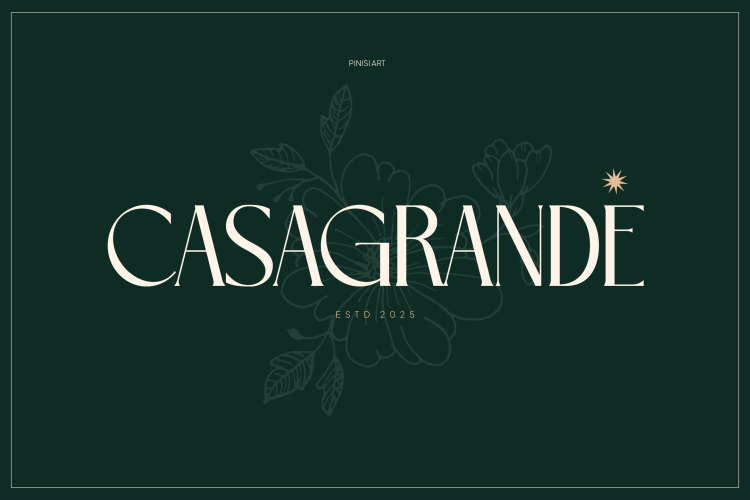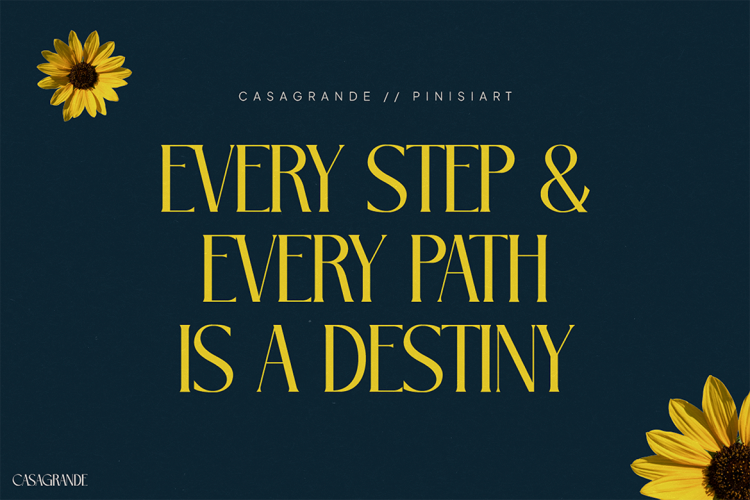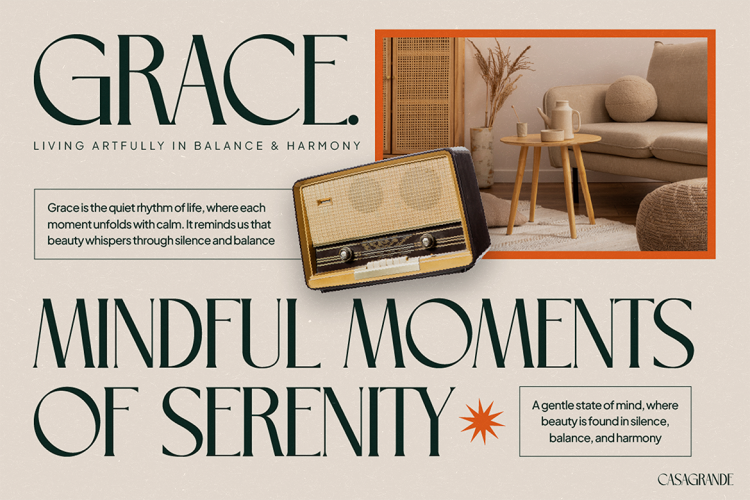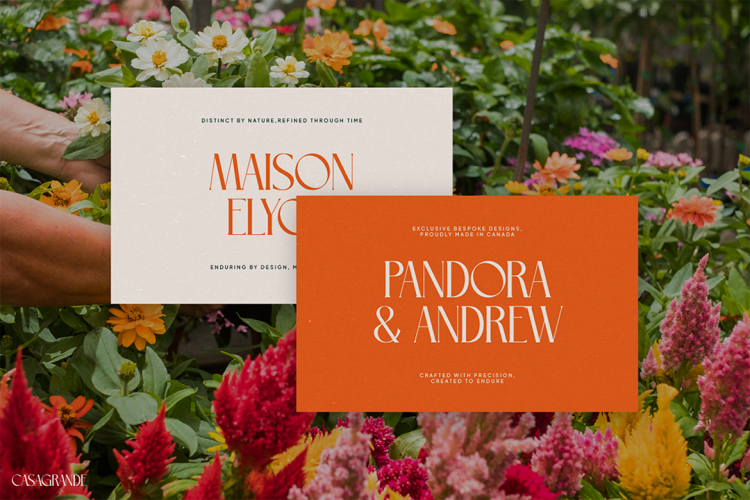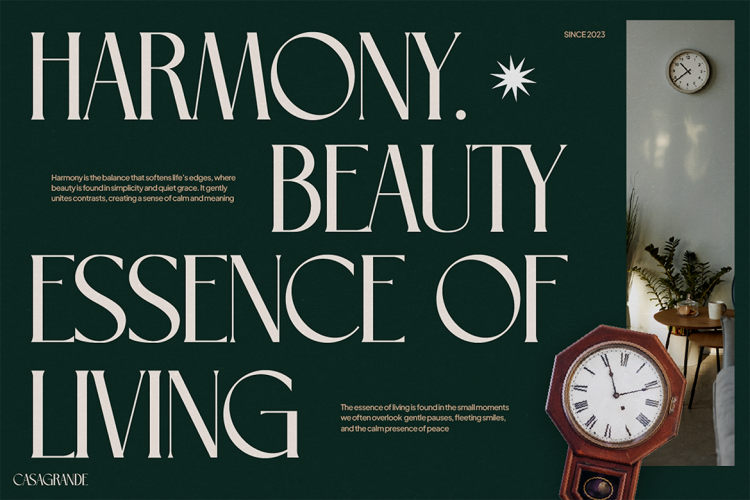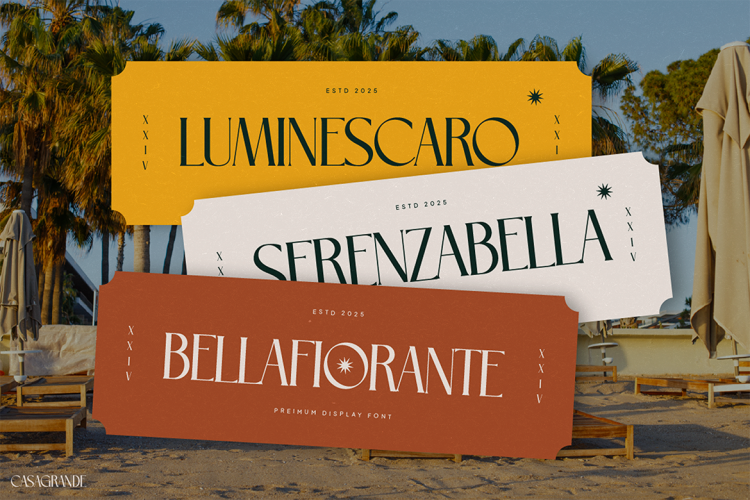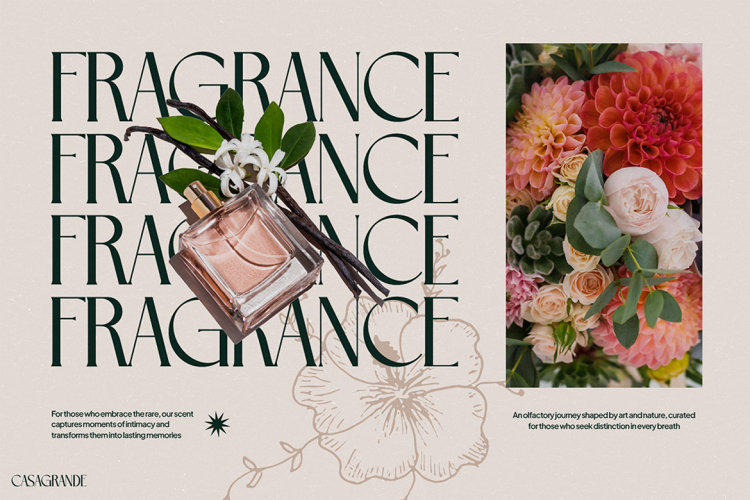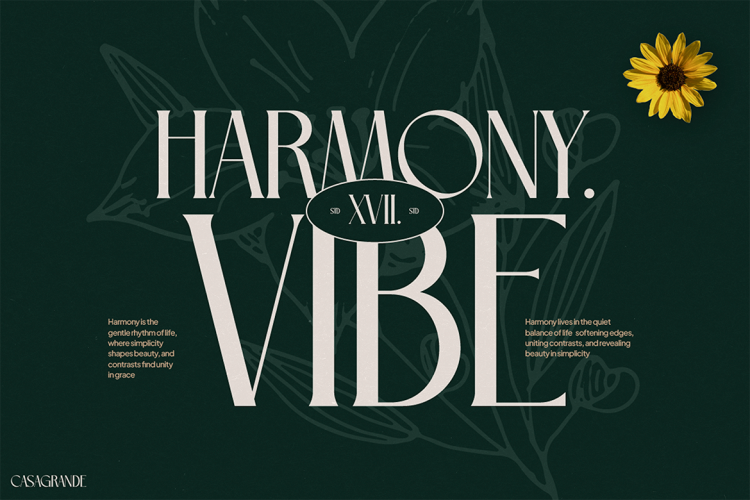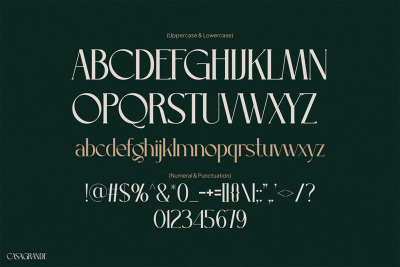
Instagram Font Casagrande
Instagram Font Casagrande is not just a typefaceโit is a bold design asset that blends sophistication with creativity. From the very first glance, you notice its refined curves, elegant contrasts, and timeless strokes. Moreover, this font maintains harmony between modern style and classical grace, which makes it truly versatile. Unlike ordinary fonts that fade into the background, Casagrande instantly elevates your design and communicates a strong aesthetic. Therefore, it becomes the perfect choice when you need a font that feels stylish yet powerful.In addition, Casagrandeโs clean lines and artistic details allow it to adapt to many design needs. Whether you want to create striking headlines, delicate invitations, or stunning Instagram content, this font consistently delivers beauty and impact. Consequently, your projects will look polished, professional, and unforgettable.
Who Itโs For
Casagrande is designed with both function and style in mind. On one hand, its balanced proportions and graceful letters ensure readability. On the other hand, its luxurious details provide a premium feel that captures attention. As a result, it works beautifully across branding, editorial layouts, product packaging, and lifestyle designs.
Font Casagrande Perfect For:
- Creative entrepreneurs who want to stand out with an Instagram-ready aesthetic.
- Influencers and content creators who need elegant typography to strengthen their personal brand.
- Designers who require a flexible typeface for magazines, posters, and online campaigns.
- Boutique businesses in fashion, wellness, beauty, or home dรฉcor that need to attract modern audiences.
- Wedding planners, event stylists, and invitation makers who value romance and sophistication.
Moreover, Casagrande makes it easier to create visuals that feel intentional and memorable. Instead of struggling with multiple fonts, you can rely on Casagrande as your go-to choice for both elegance and impact.In conclusion, Instagram Font Casagrande offers the perfect mix of modern aesthetics and timeless beauty. Because of its versatility, it empowers you to design content that inspires and connects with your audience. So why settle for less, when you can elevate every project with a font that speaks style, harmony, and strength? Add Casagrande to your collection today and transform your creative journey with confidence.